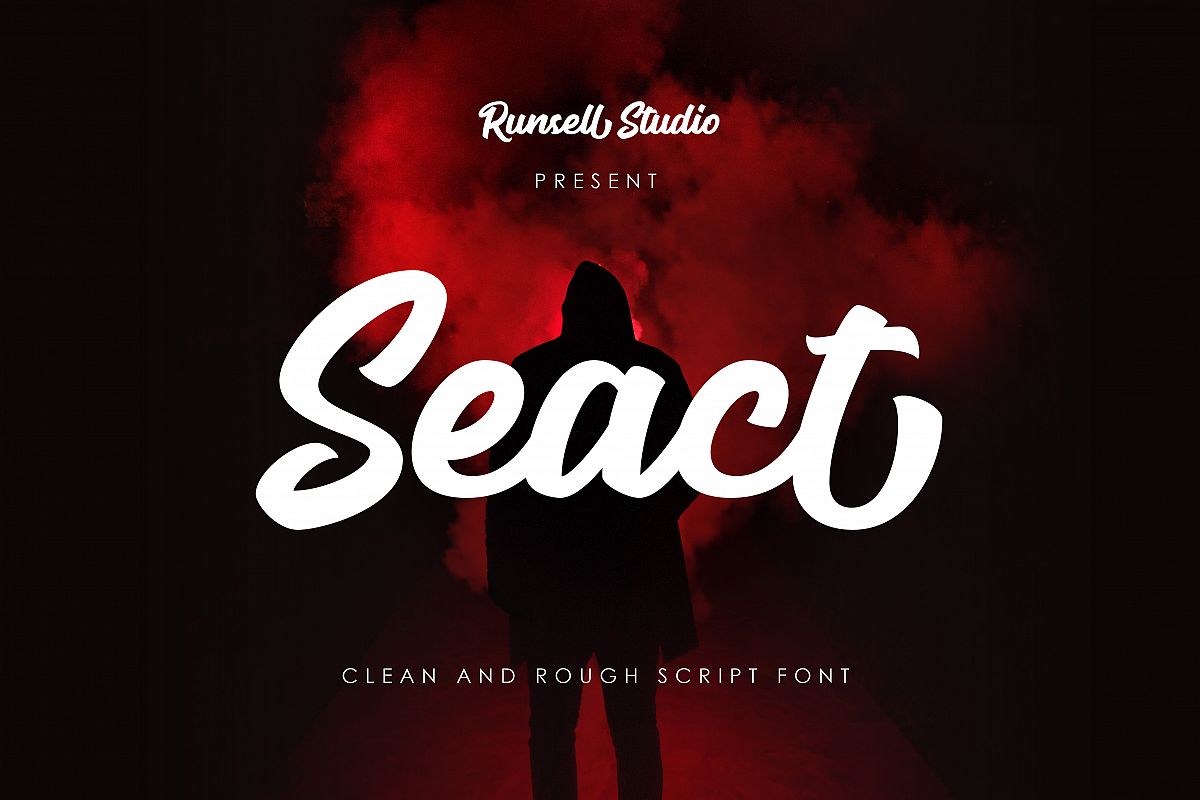
Seact is a sweet and fresh font with clean and rough style. Seact is great for logotype, typography, poster, printed quotes, invitations, cards, product packaging, headers, letterhead, apparel design, label, and etc.
Seact comes with uppercase, lowercase, numerals, punctuation and multilingual characters.
1. Clean and Rough Character
2. Stylistic Alternate
3. Swash Variant
4. Ligature